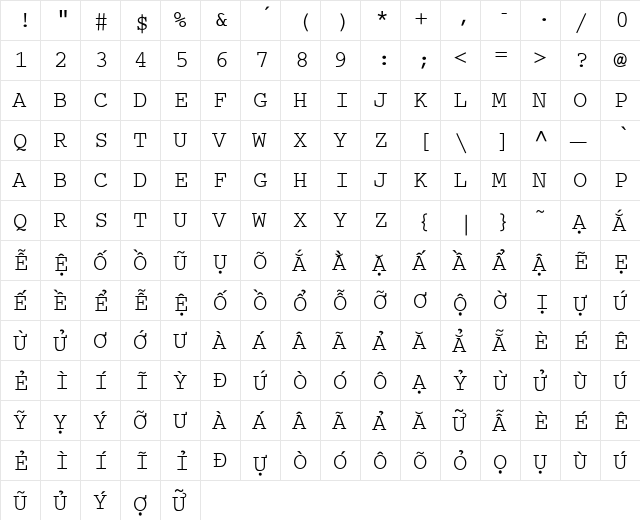
MinhQu⮈ 1.1 Regular
Design Context for MinhQu⮈ 1.1 Typeface
MinhQu⮈ 1.1 is a composed and adaptable typeface that performs quietly and consistently across a wide range of design contexts.